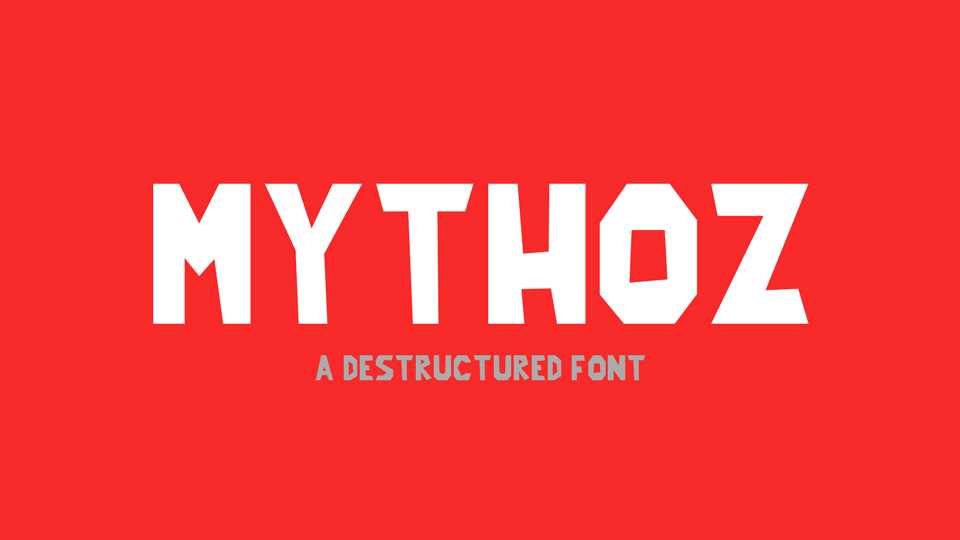
Download Mythoz font, a bold destructured typeface with a handmade look. Mythoz font is perfect for titles, poster design, packaging, illustrations, badges and other typography works.
Designer: Zacharie Guet